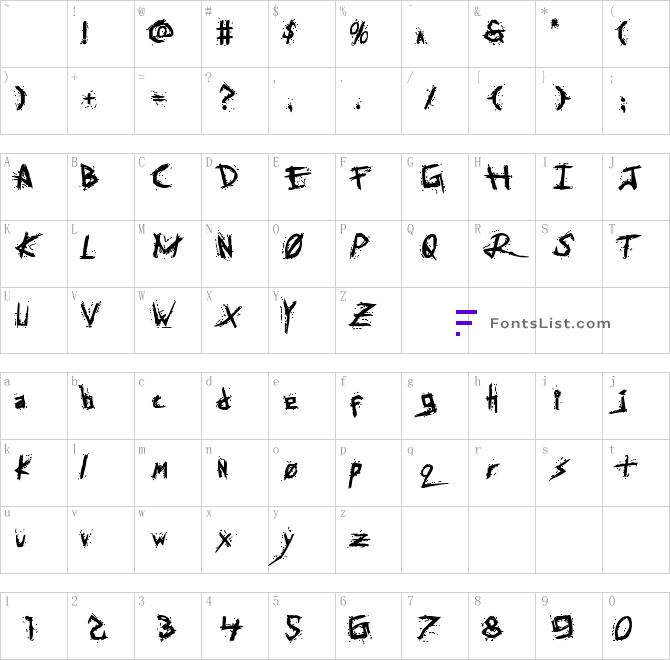
- Font Name:Assassin Nation Extra-Bold
Assassin-Nation-Extra-Bold.ttf is a very beautiful artistic font, Assassin-Nation-Extra-Bold.ttf is widely used in the design and printing of various books and pictures,Assassin-Nation-Extra-Bold.ttf has a strong visual impact,Assassin-Nation-Extra-Bold.ttf is a commonly used font in newspapers, magazines and books, and is used in posters, e-commerce Poster design, store design, logo design, font design and other fields.Assassin-Nation-Extra-Bold.